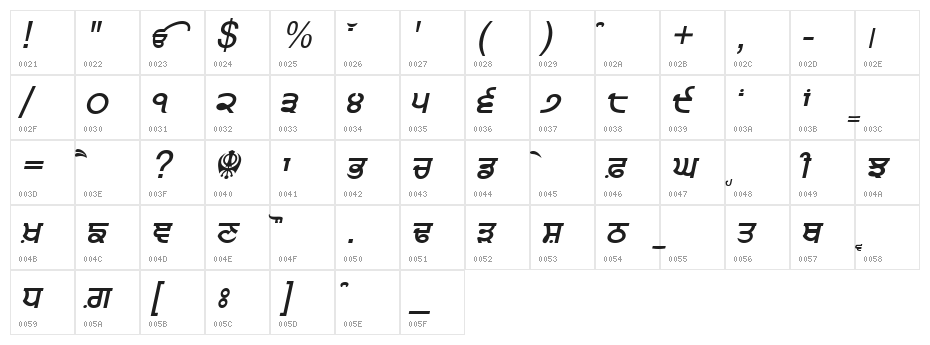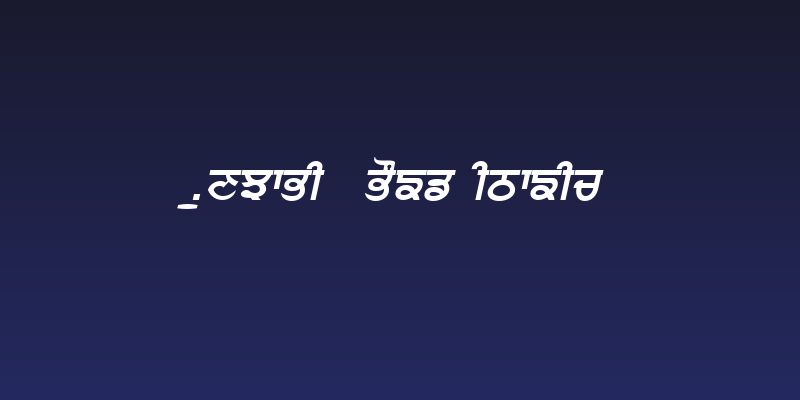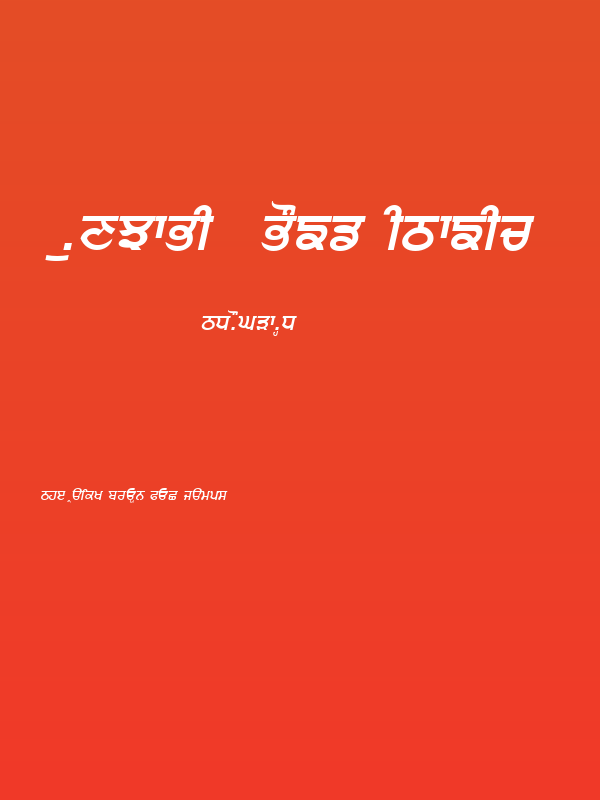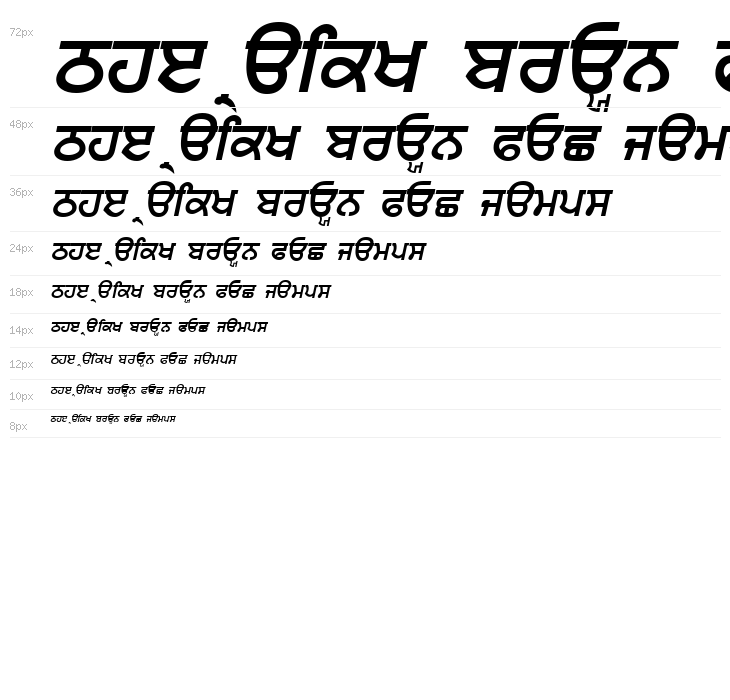
Punjabi Bold Italic Font
Punjabi Bold Italic Description
This font features a bold and italicized style with a distinct Punjabi script. The characters are robust and dynamic, showcasing a strong presence with their thick strokes and slanted orientation. The script is elegant yet powerful, making it suitable for impactful designs. The numerals and special characters maintain the same boldness and italicization, ensuring consistency across all elements. The overall design is modern with a traditional touch, reflecting cultural authenticity while being adaptable for contemporary use.
| Proposed Projects | Ideal for cultural event posters, traditional product packaging, and modern Punjabi literature covers. |